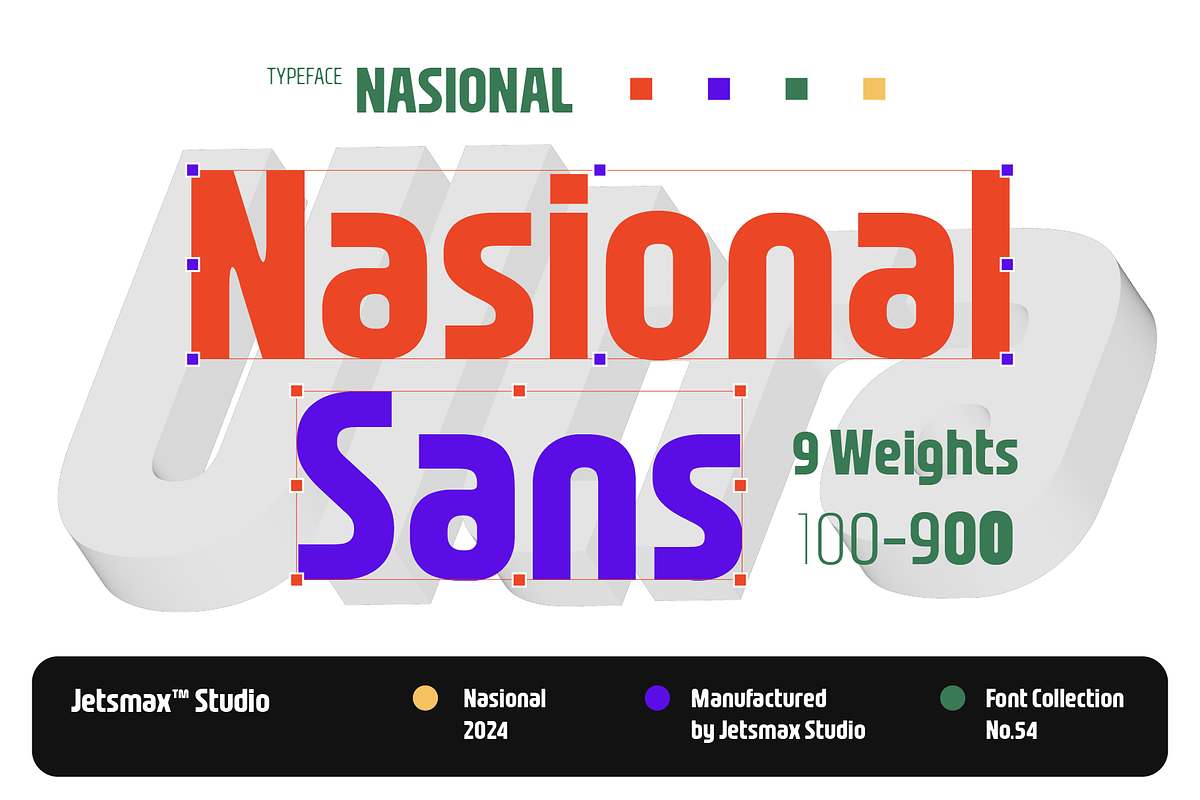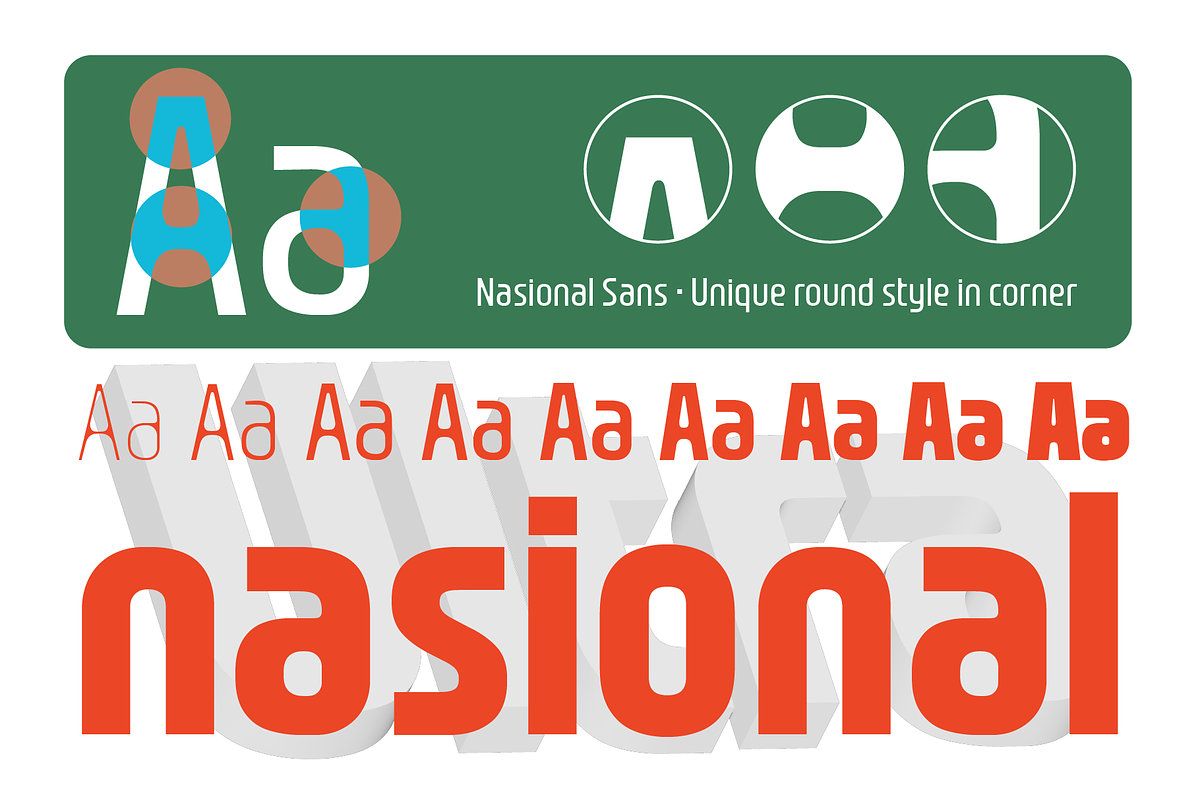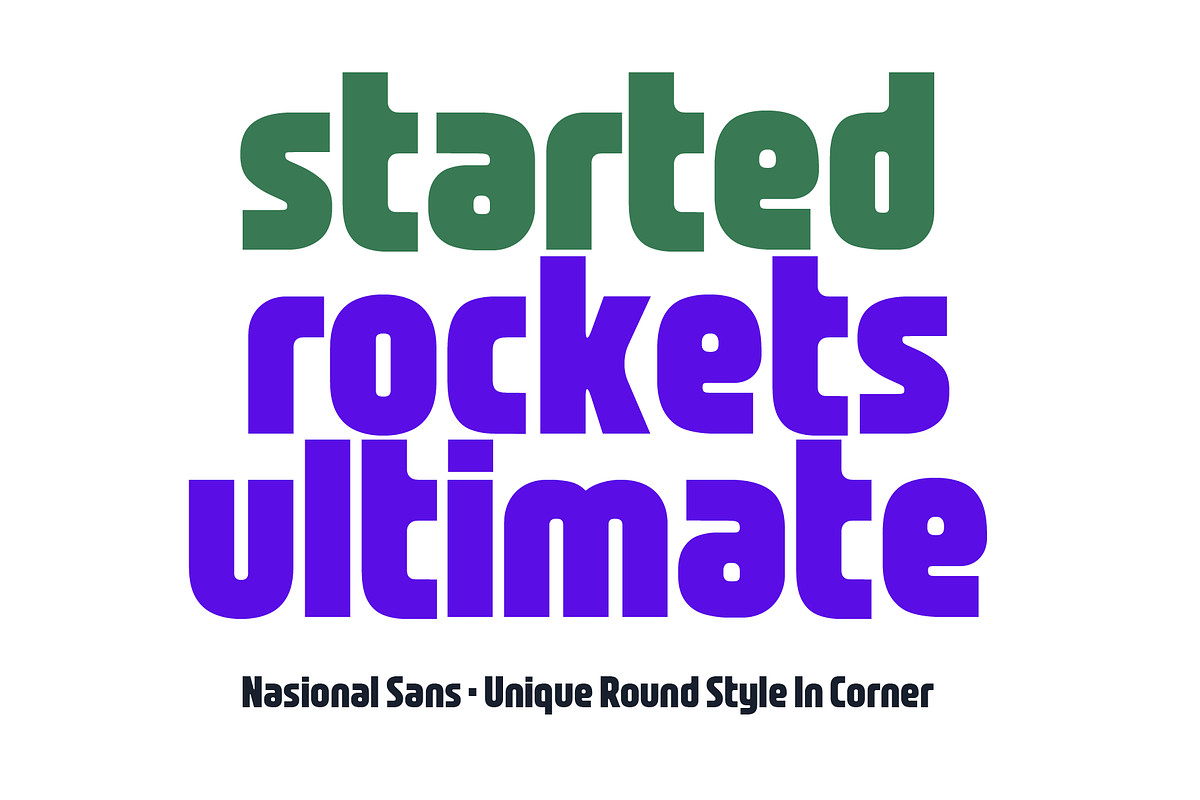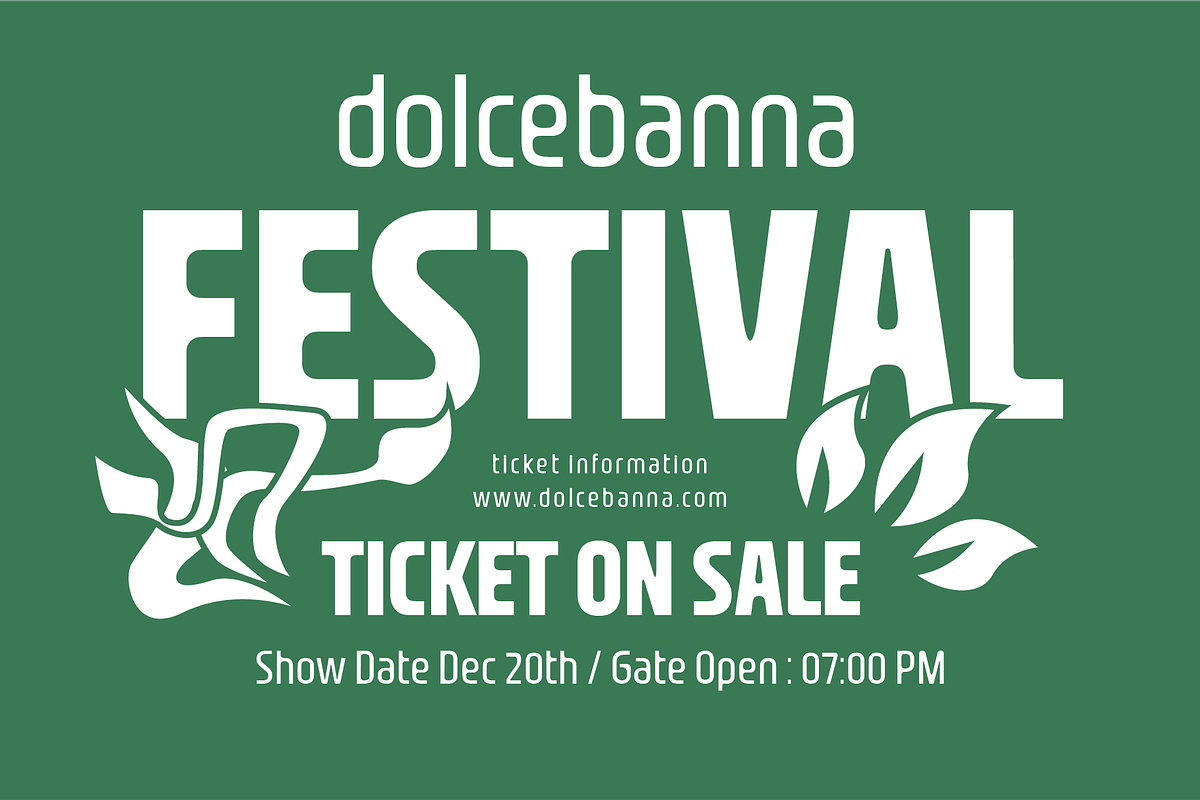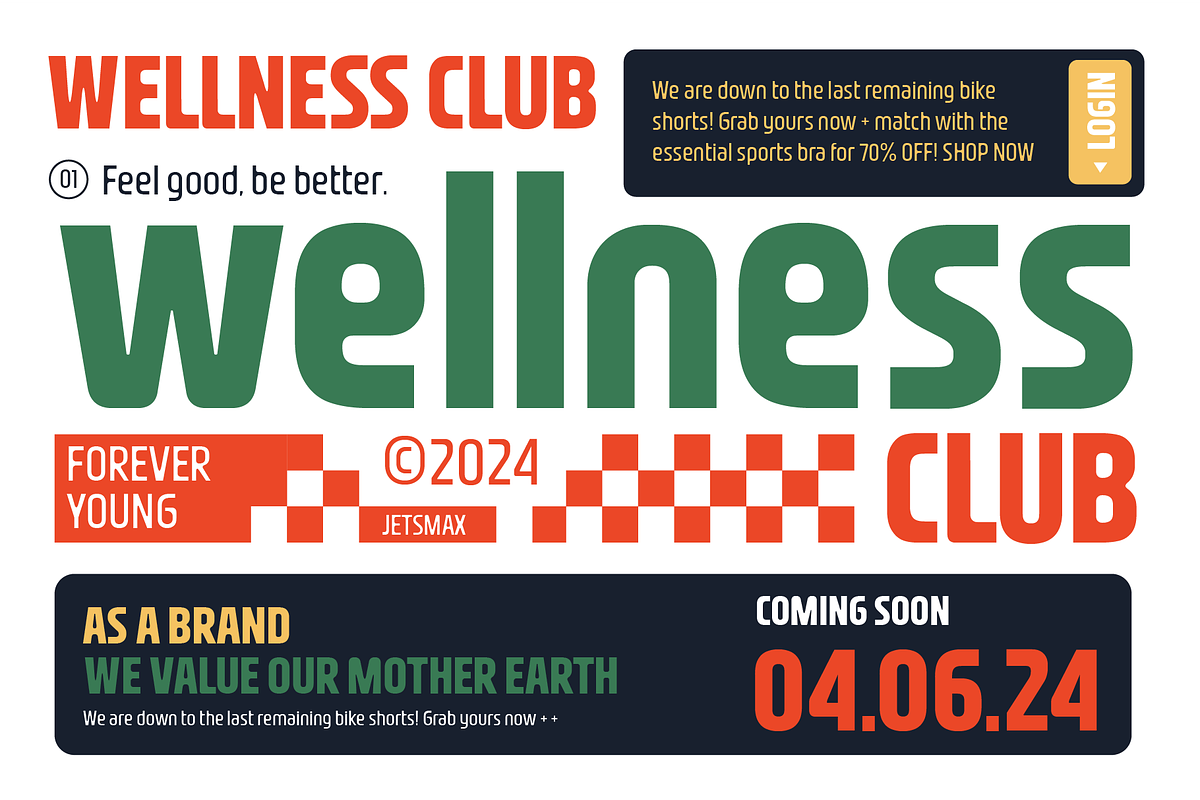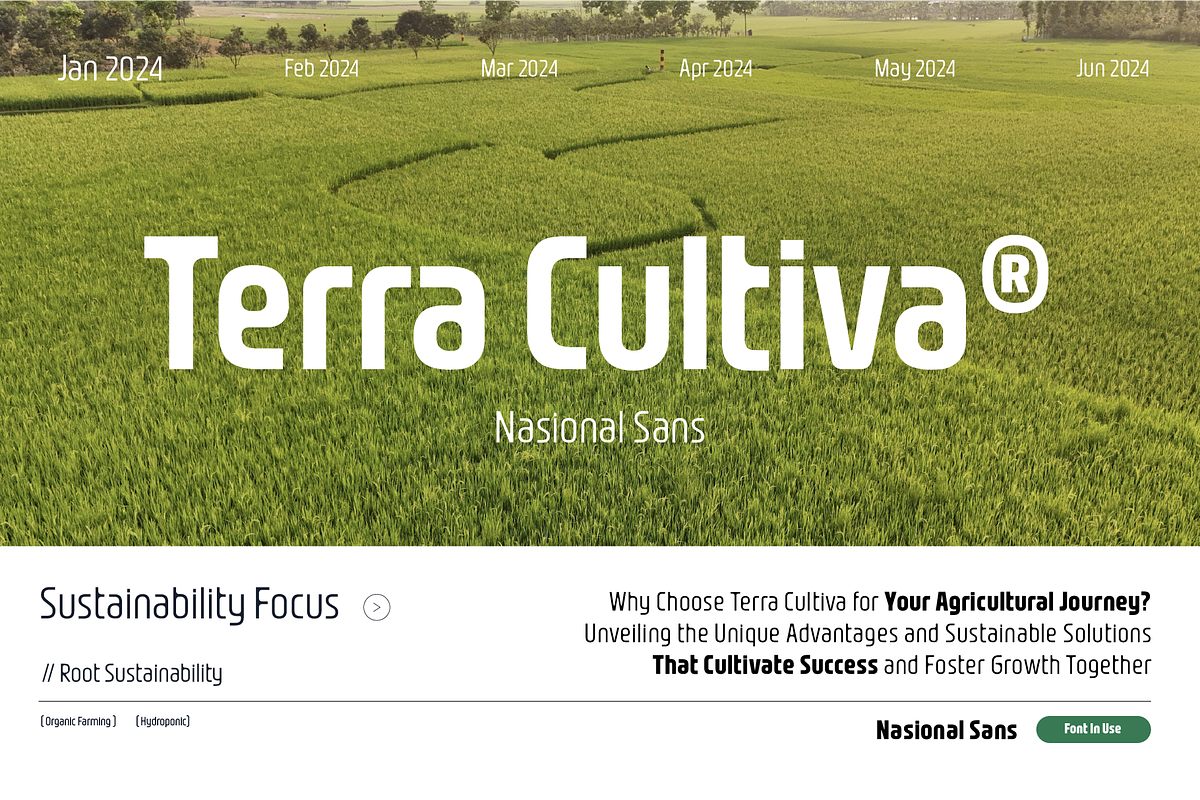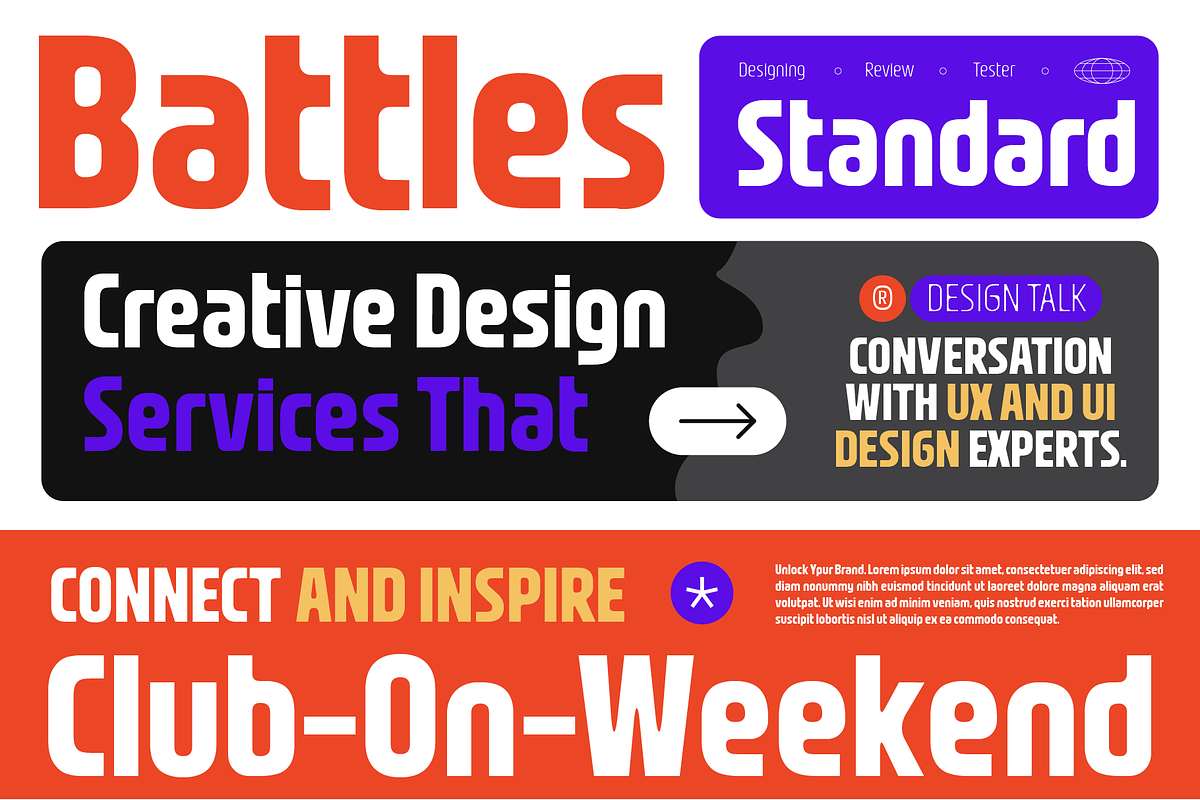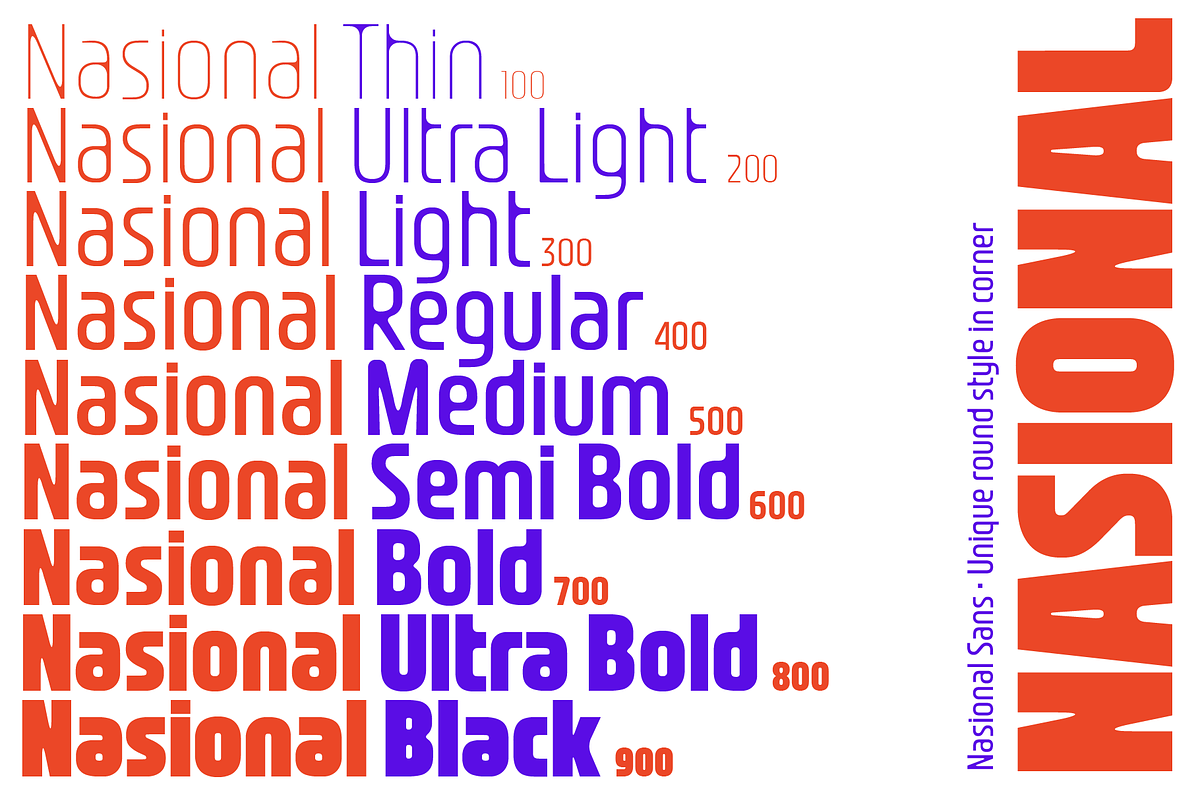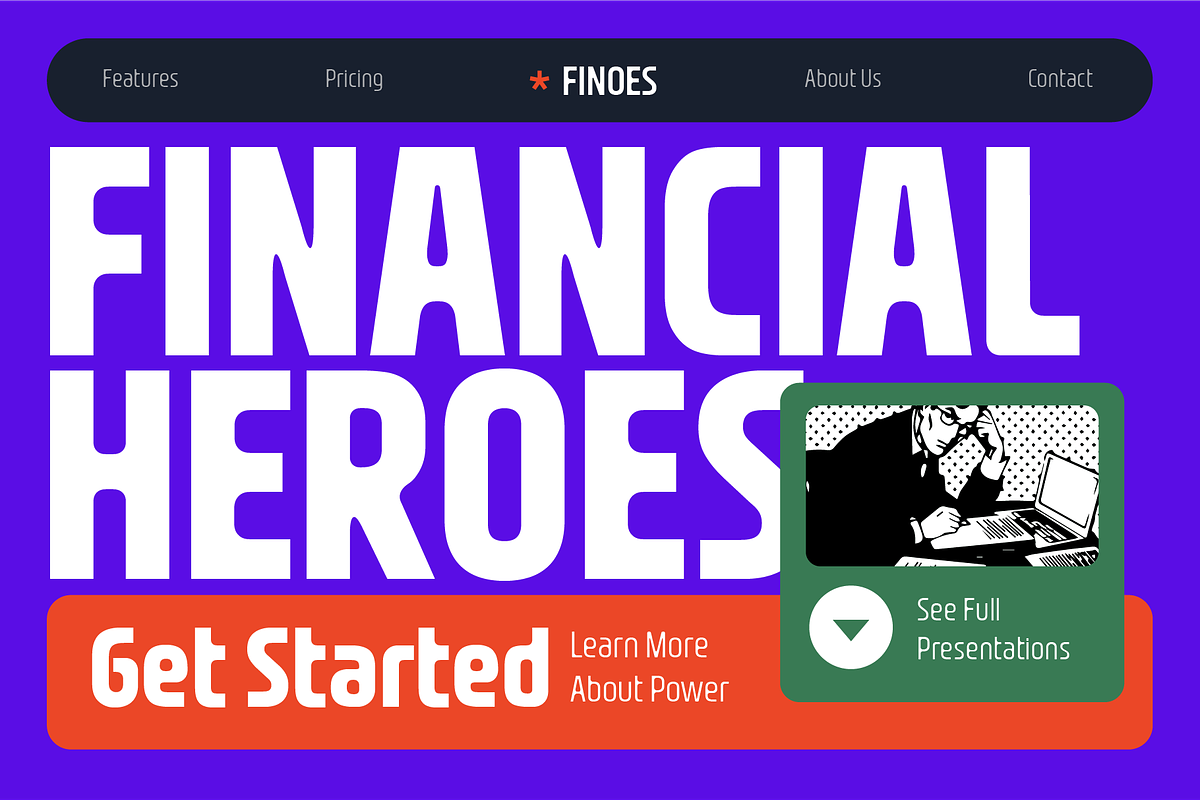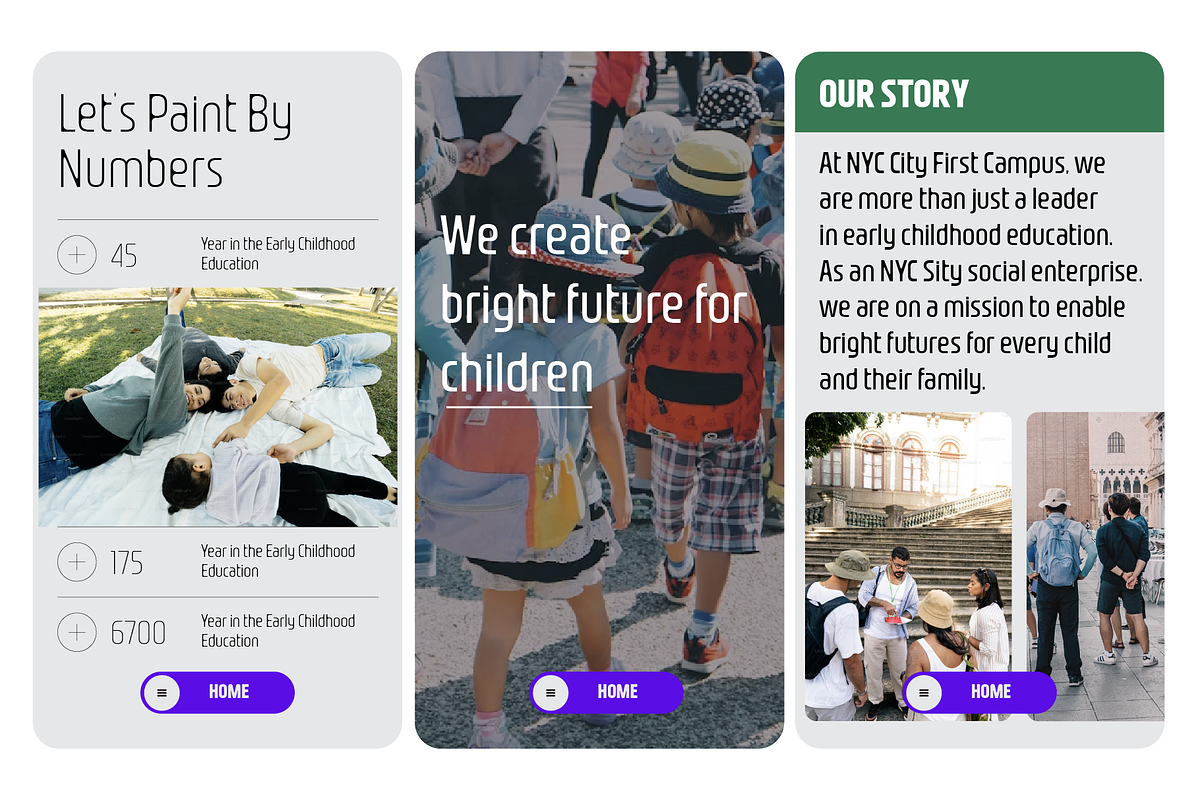
Nasional Sans
Nasional Sans is a modern and versatile typeface, ideal for titles and body text. It offers 9 weights from Thin to Black, allowing for flexibility and different levels of emphasis. The sans-serif design provides a sleek, contemporary look, ensuring high readability and visual appeal even at larger sizes. With its clean lines and balanced proportions, Nasional Sans supports multiple languages and is perfect for both digital and print applications, making it a top choice for impactful and stylish designs.